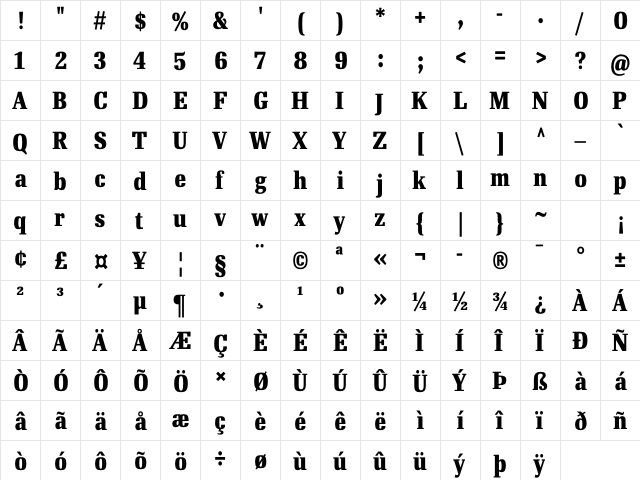
RePublic Text Bold Cond Font Preview
Design Context for RePublic Text Typeface
RePublic Text takes a measured approach to typography — its balanced proportions and neutral character make it a reliable workhorse for both digital and print work. The heavy weight commands attention and anchors typographic hierarchies. Its narrow stance lets it pack a punch even in space-constrained designs.
Pro Tip: Pair RePublic Text with a font of contrasting weight or personality to build a more expressive typographic hierarchy.